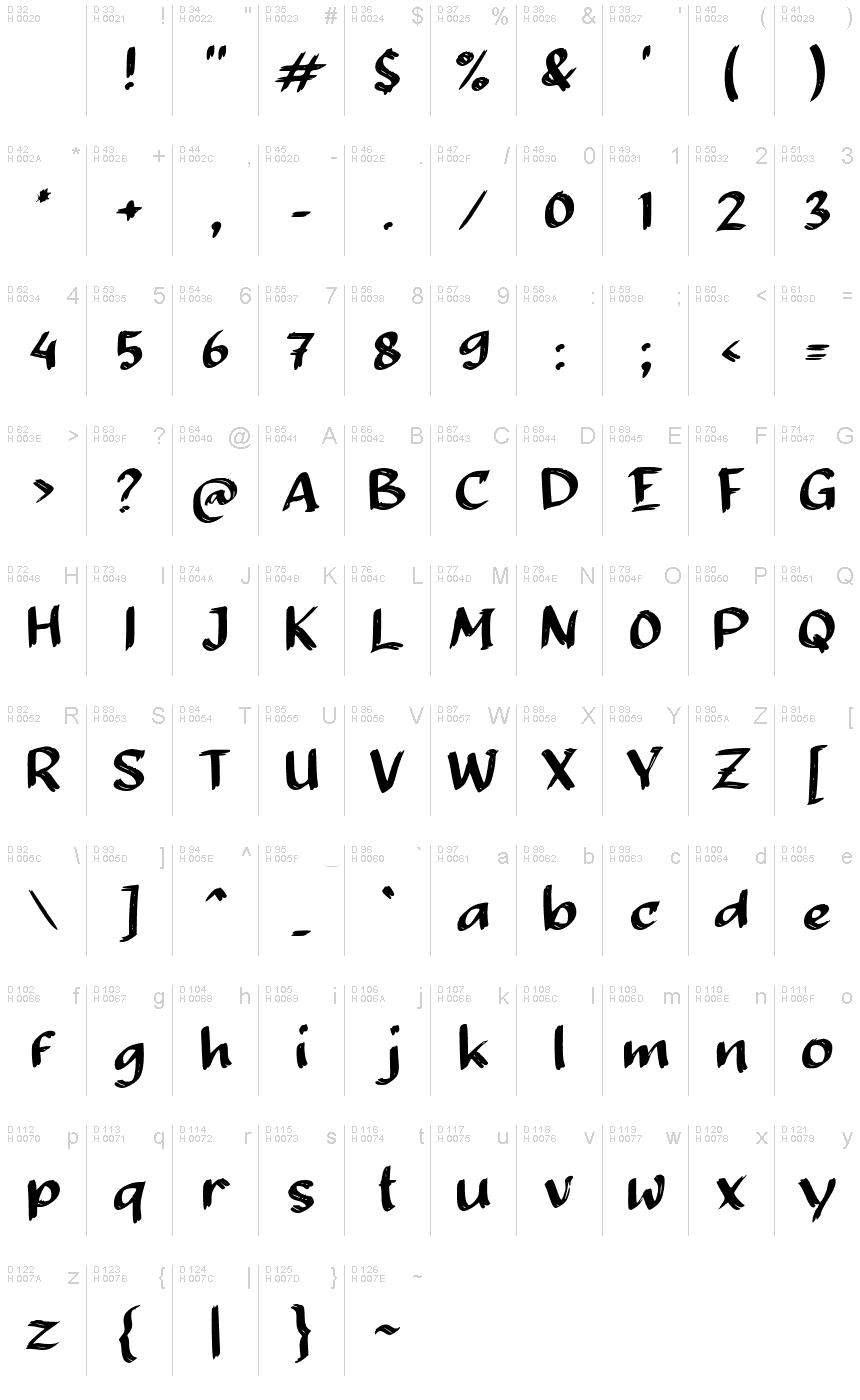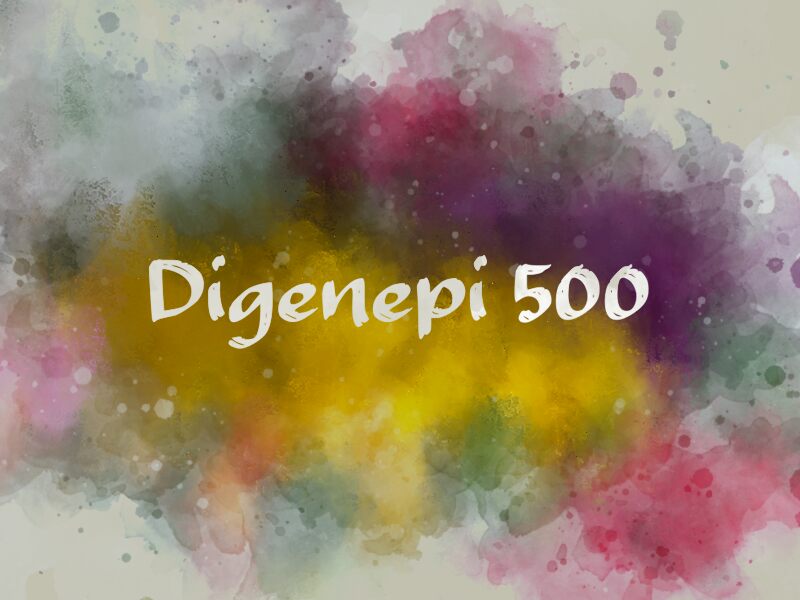
Digenepi 500
Introducing Digenepi 500, a bold brush font designed by Wahyu Eka Prasetya. Ideal for creative projects such as logos, t-shirt prints, posters and lettering. Make a statement with this unique font!